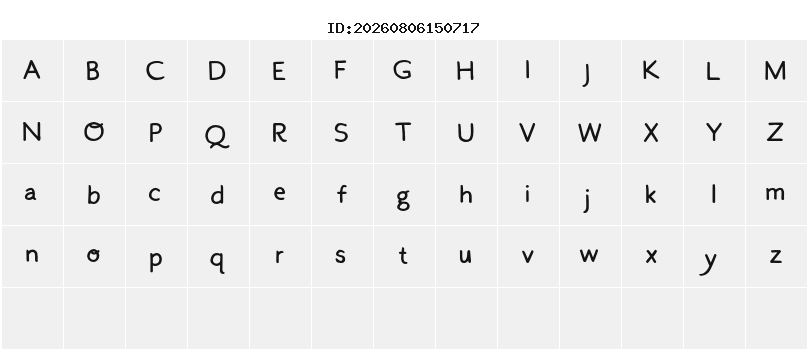
• Font Name: On Kayak
• Manufacturer: Skyhaven
About On Kayak.otf
On Kayak.otf is a modern, elegant sans-serif font designed for ultimate readability and visual harmony. Perfect for branding, headlines, web design, and print materials.